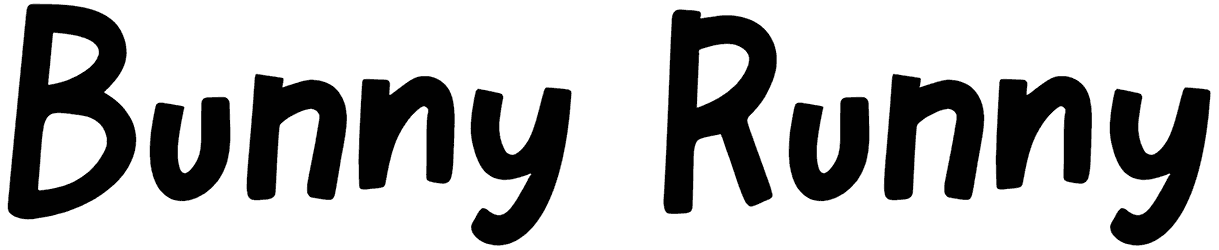
Bunny Runny Font
There’s no way to keep count of all the cuteness that Bunny Runny brings along to your lettering. You just know that you love your text way more than its previous version and that everything seems so much more fun with a bunny font so jolly in charge.
Next thing you know, you’re waiting for the next cartoon design for children’s storybooks, gaming apps, and board game cafe posters so that you get a chance to work with this comic font.